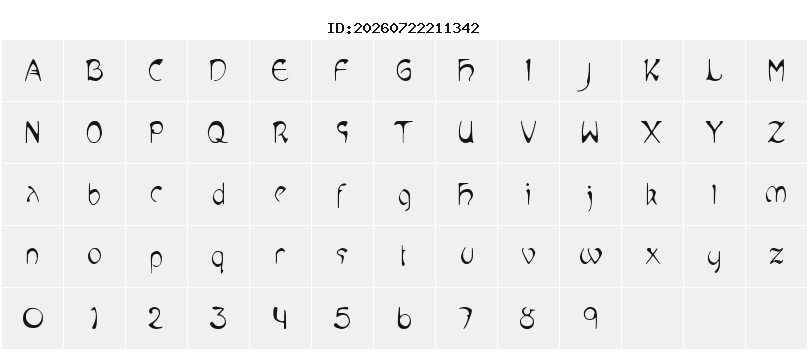
• Font Name: Mucha
About Mucha.ttf
Mucha.ttf is a modern, elegant sans-serif font designed for ultimate readability and visual harmony. Perfect for branding, headlines, web design, and print materials.